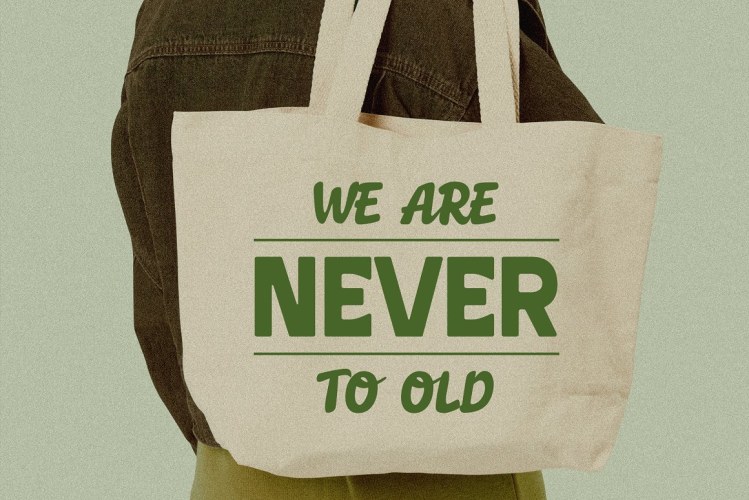
Radiate Vintage Font
Radiate font is a vintage font and a free Personality font This font I created is meaningful & very versatile, it goes well with various designs, elevating them to the highest level. Add this font to your favorite creative ideas and see how it comes to life!
Radiate Vintage Font is a Display Fonts font that brings a professional and versatile look to your projects. Radiate font is a vintage font and a free Personality font This font I created is meaningful & very versatile, it goes well with various designs, elevating them to the highest level.